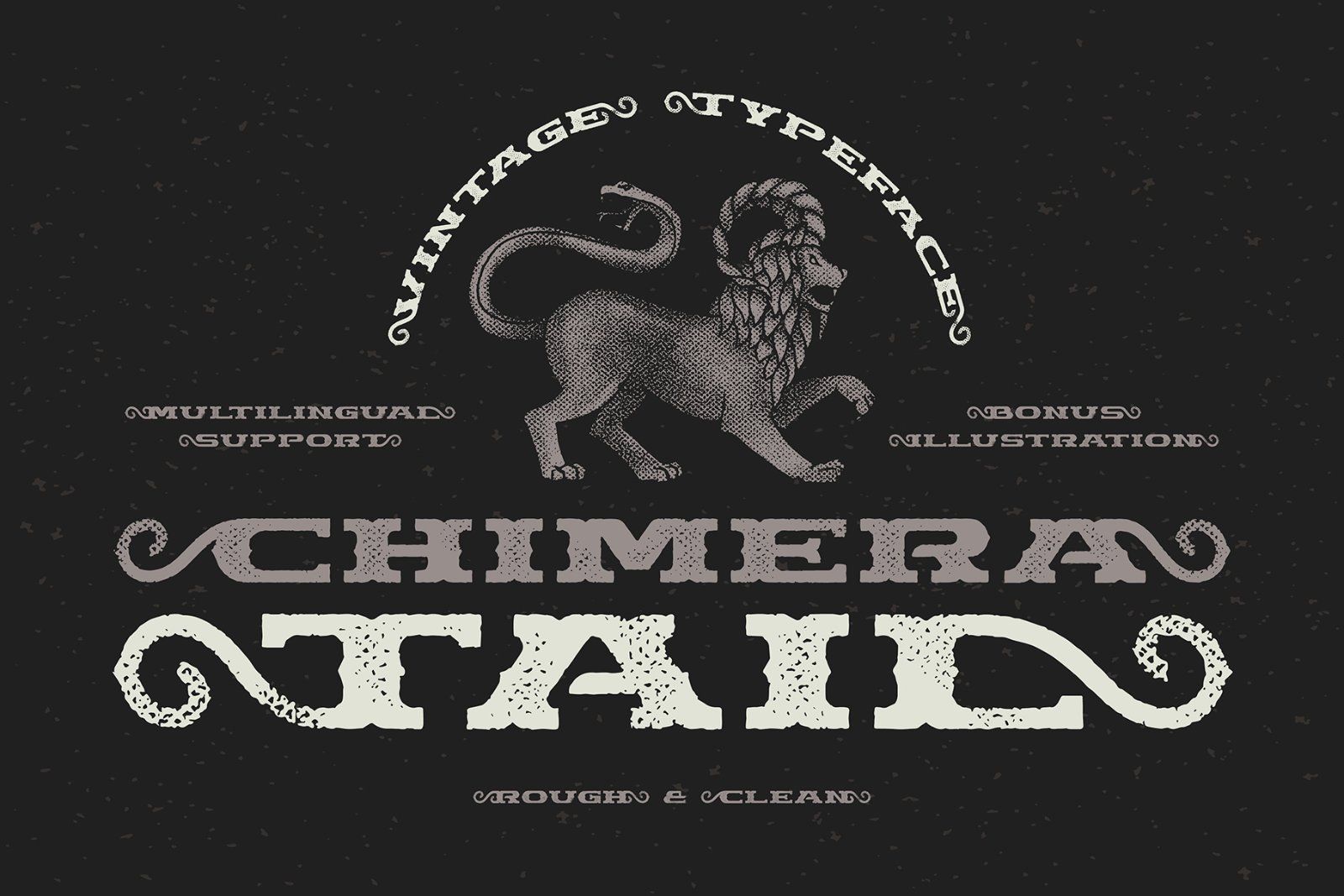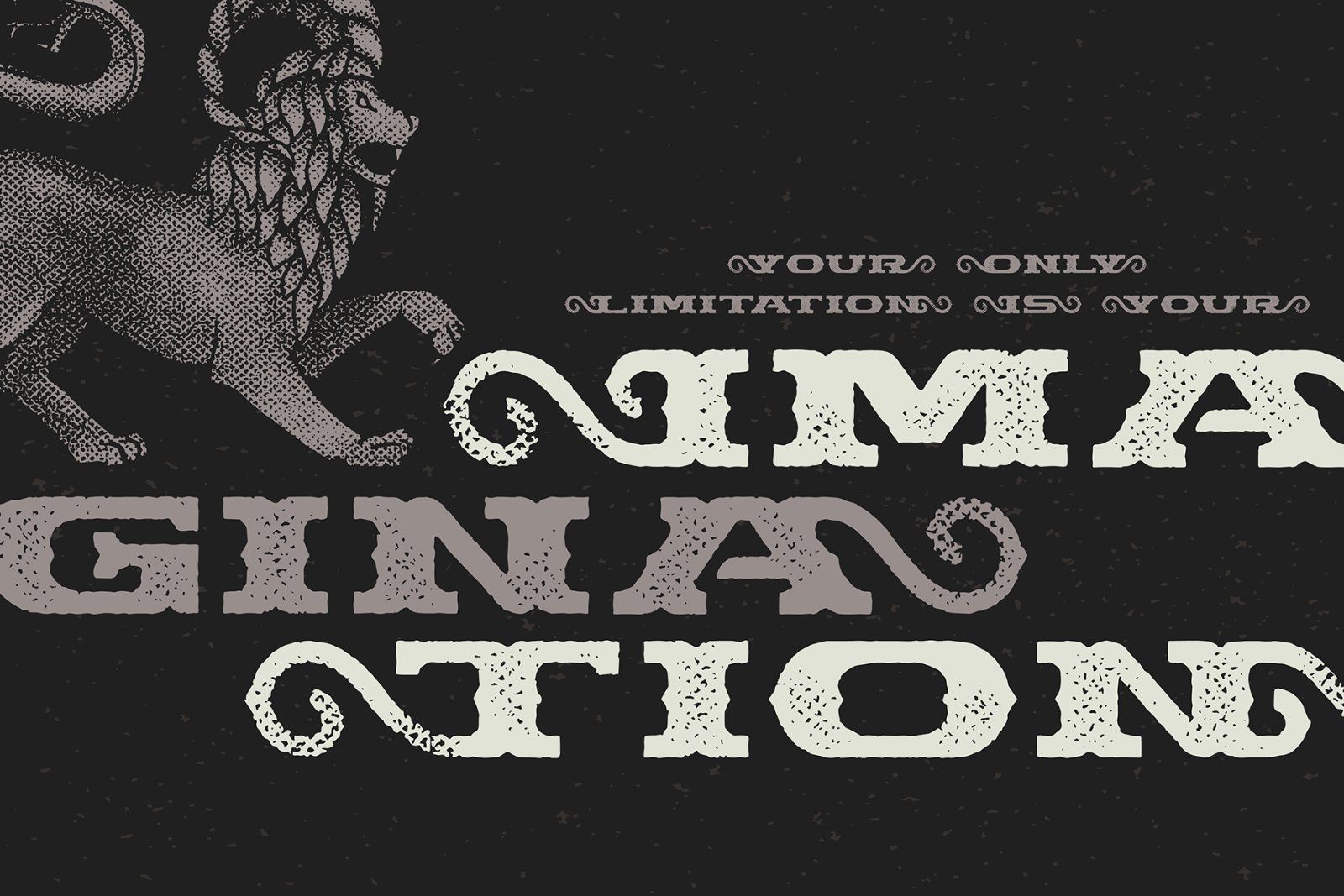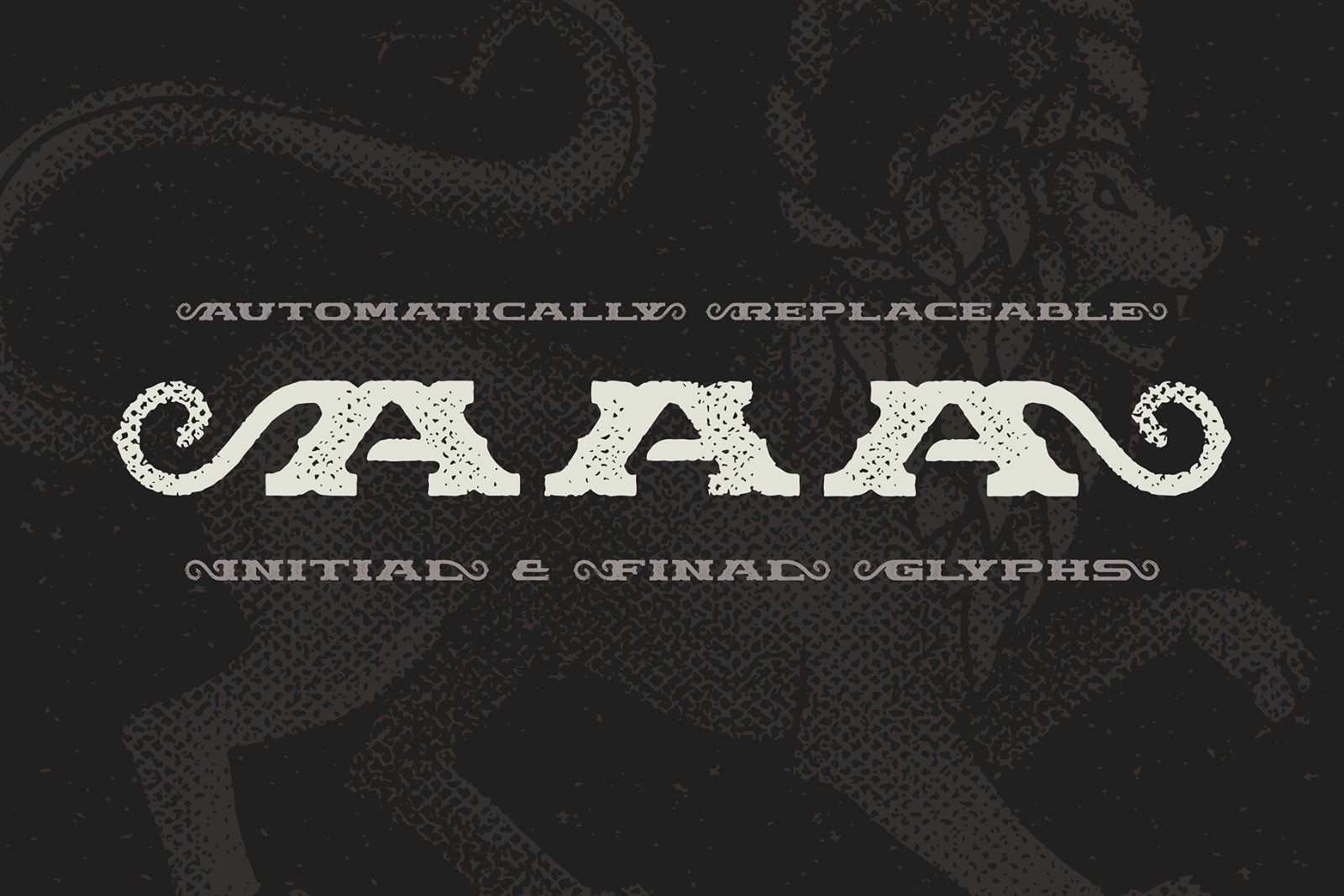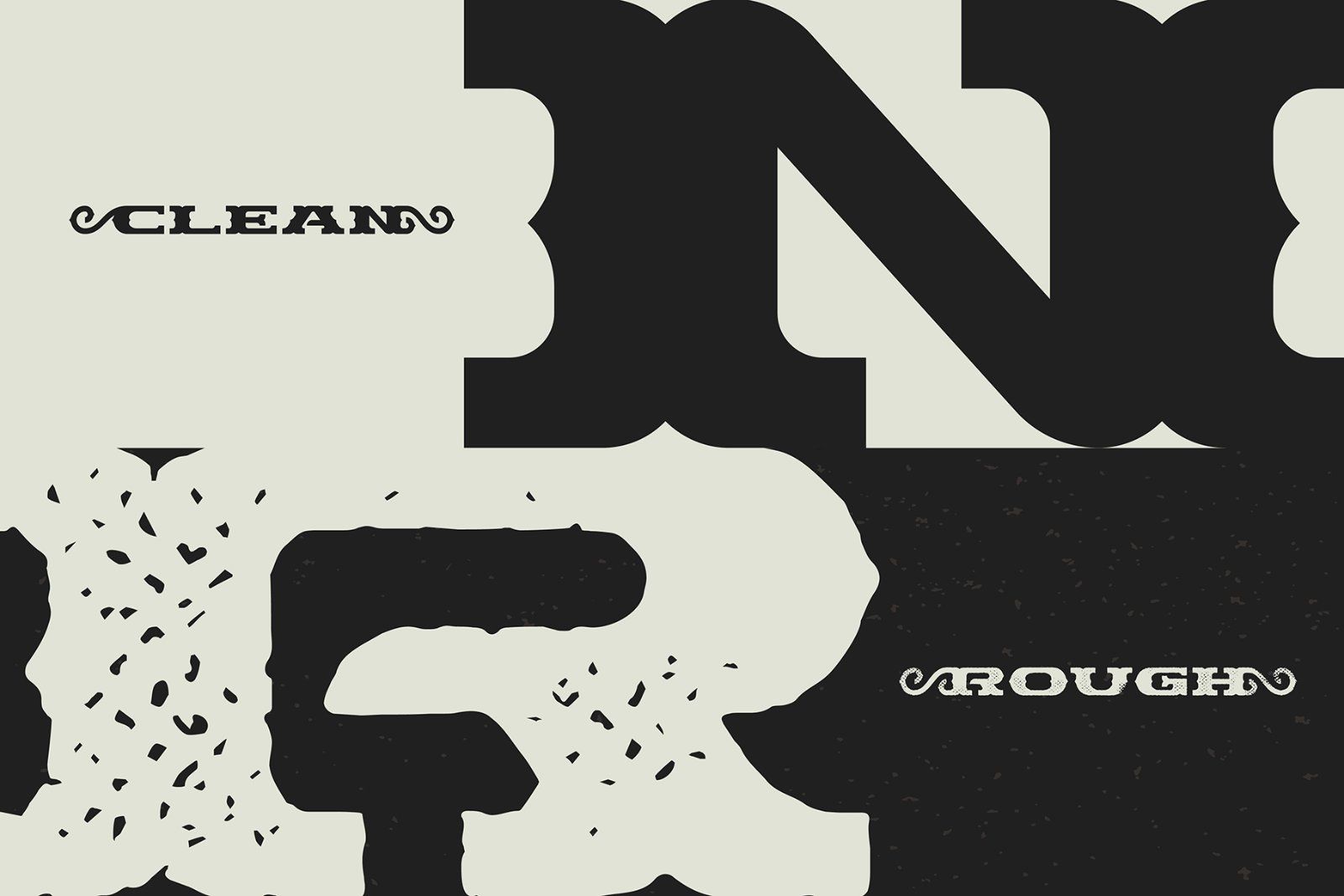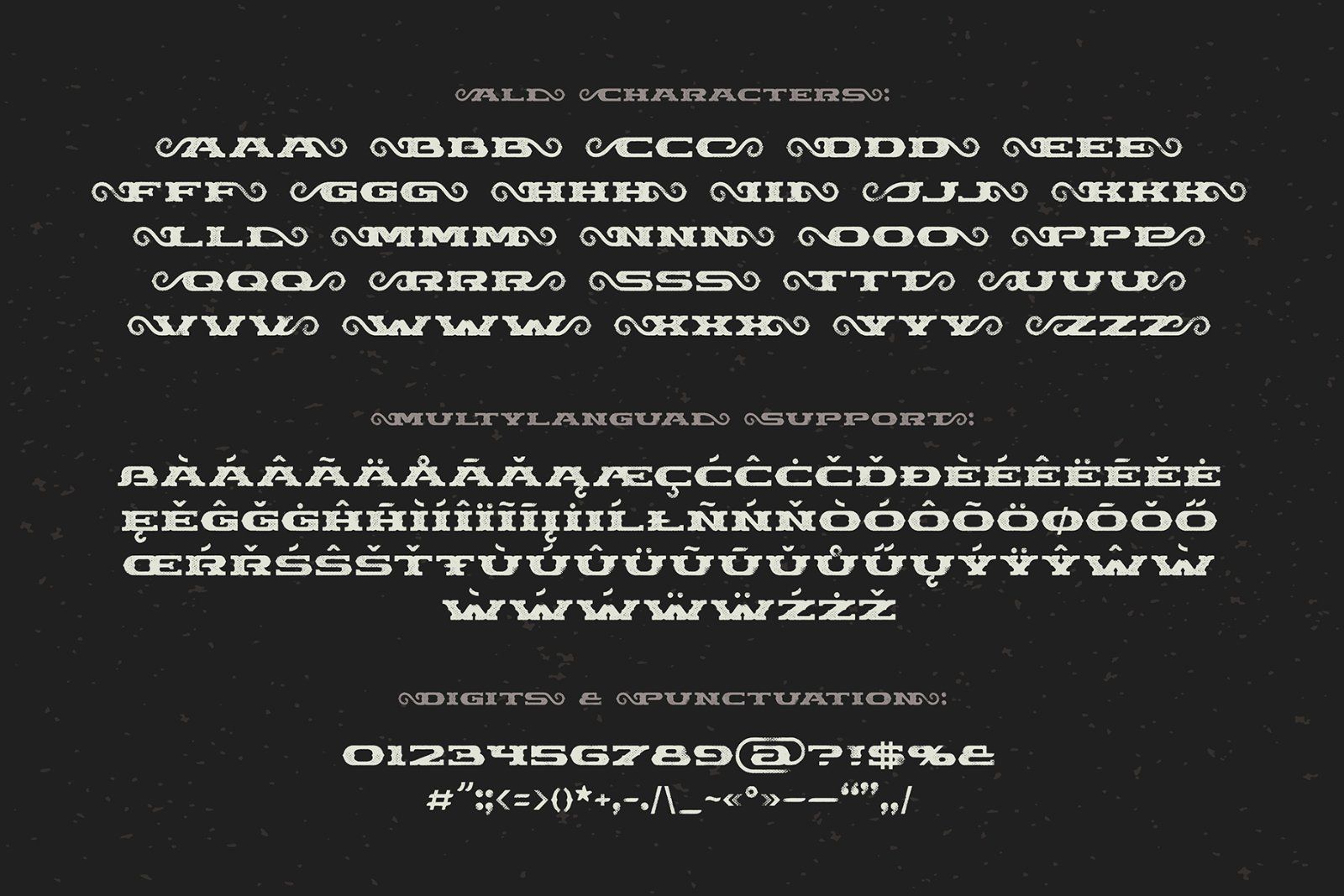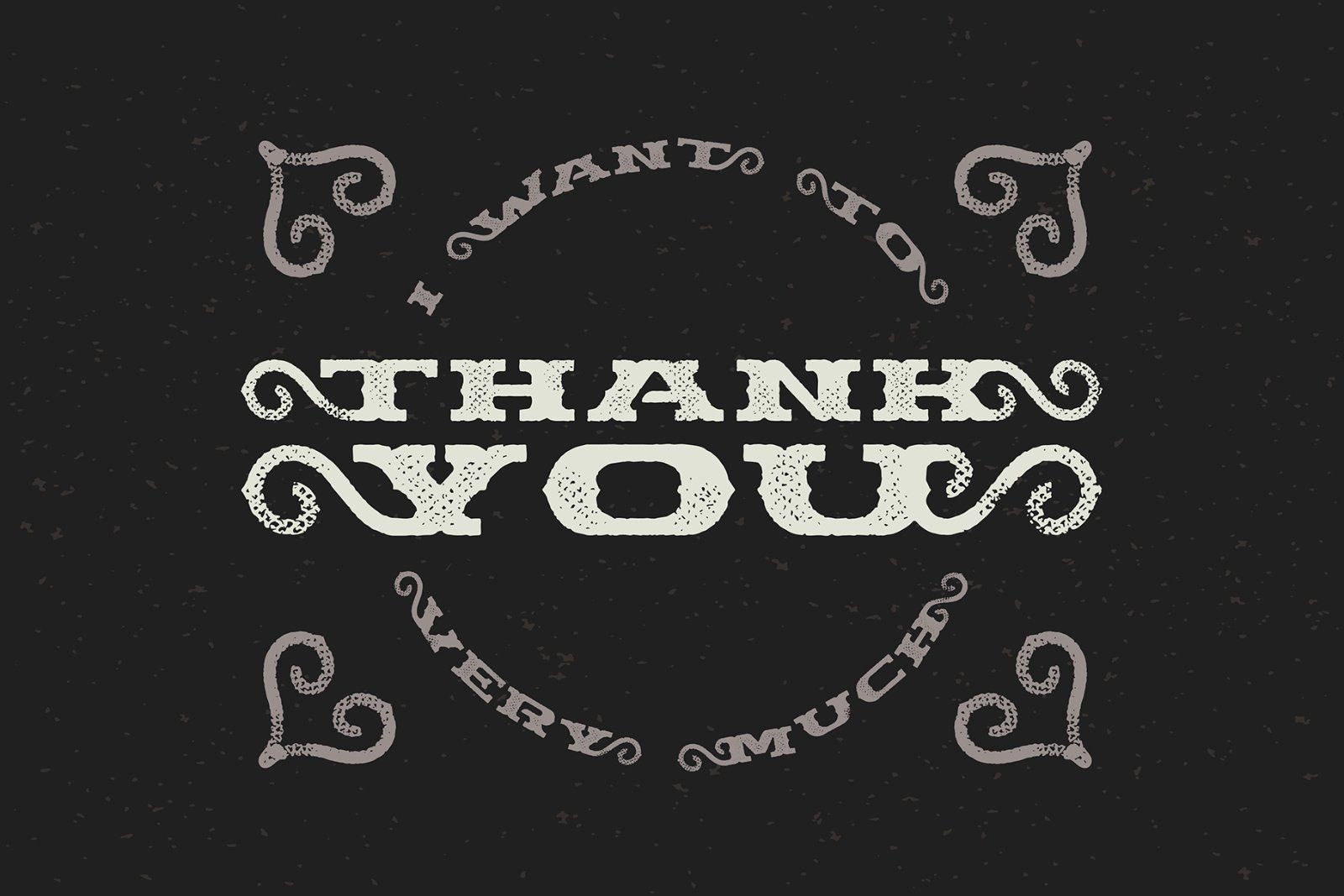
Hello! Presenting a vintage dark font "Chimera Tail". It's a wide textured typeface with automatically replaceable initial and final extended characters. Also a clean version without texture is included. As a bonus you'll get a vector illustration of a chimera from the first screenshot.